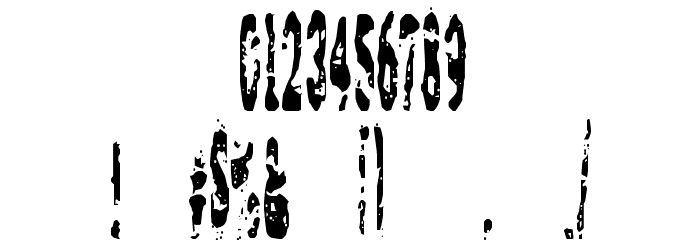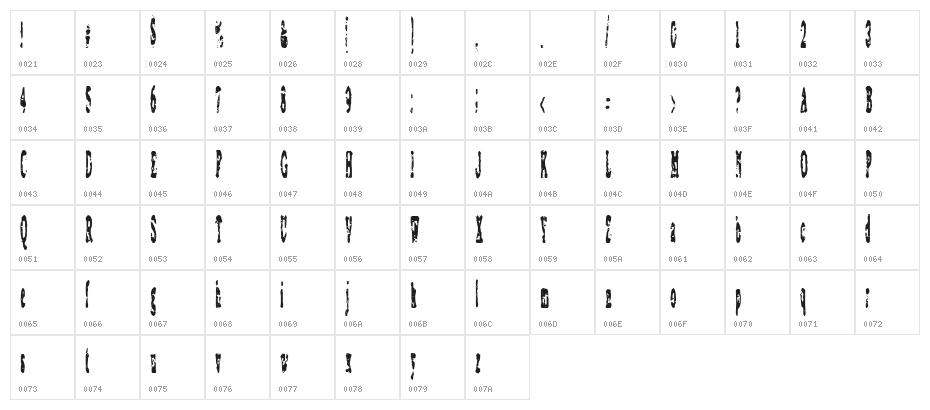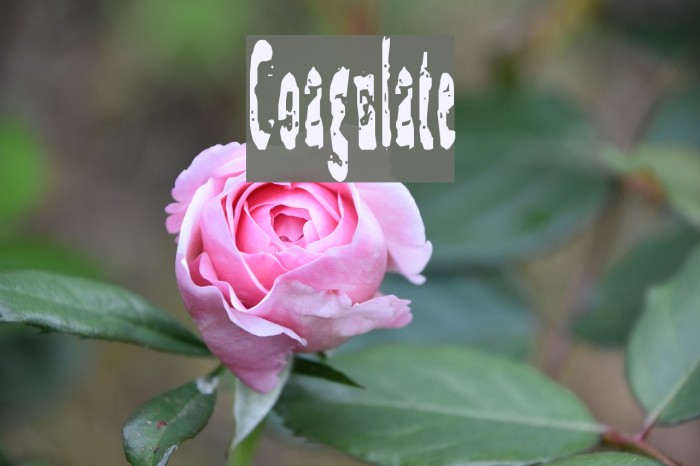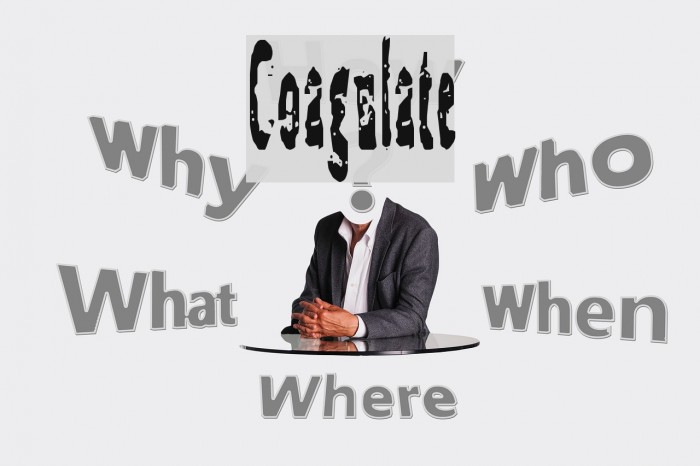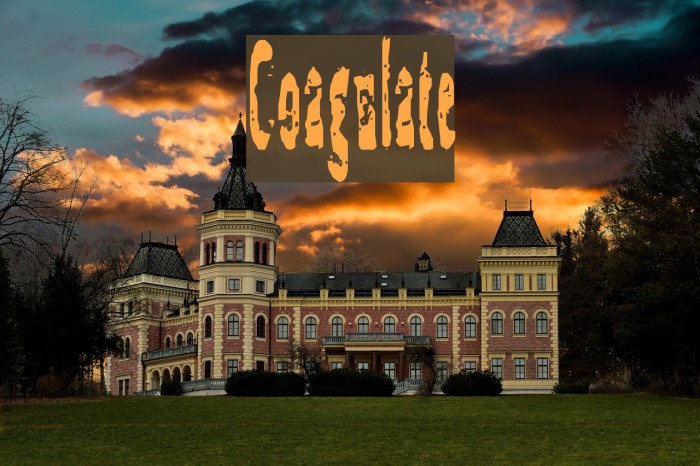
Coagulate Font
Coagulate Description
This font features a distressed, grunge style with a textured appearance that mimics the look of worn or eroded surfaces. The characters are bold and have irregular edges, giving them a rugged and raw aesthetic. The uppercase and lowercase letters maintain a consistent height, while the numbers and special characters follow the same distressed theme. This font is ideal for creating a vintage or industrial feel in design projects, and its unique style makes it stand out in any setting.
| Proposed Projects | Ideal for posters, album covers, branding for edgy or alternative products, and any design needing a vintage or industrial touch. |